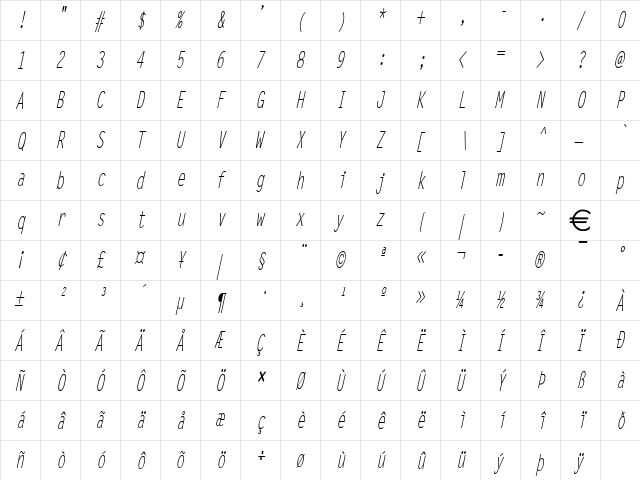
LechterThin Italic Font Preview
Design Context for LechterThin Typeface
LechterThin takes a measured approach to typography — its balanced proportions and neutral character make it a reliable workhorse for both digital and print work. Its italic angle brings a sense of urgency and motion to the letterforms. The delicate stroke weight brings airiness and refinement to layouts.
Pro Tip: Try LechterThin for annotation and caption copy alongside an upright companion — the contrast in angle creates a dynamic but ordered typographic system.